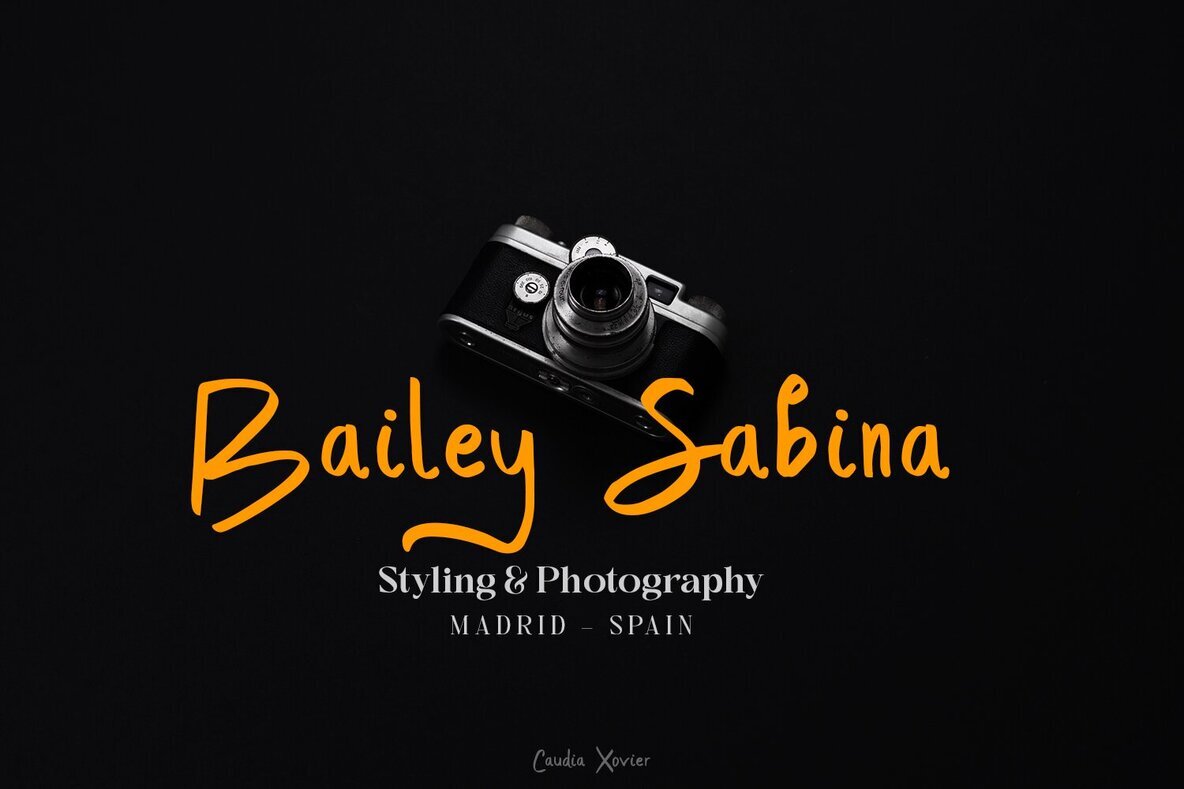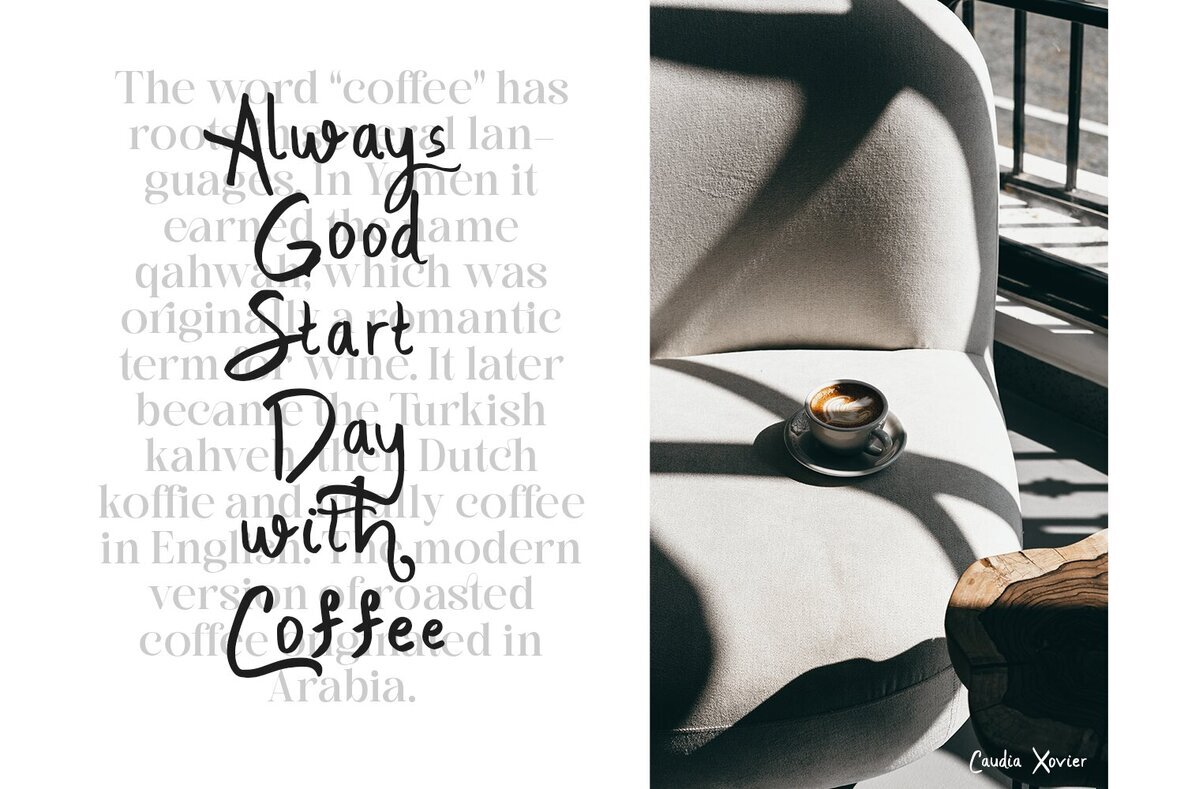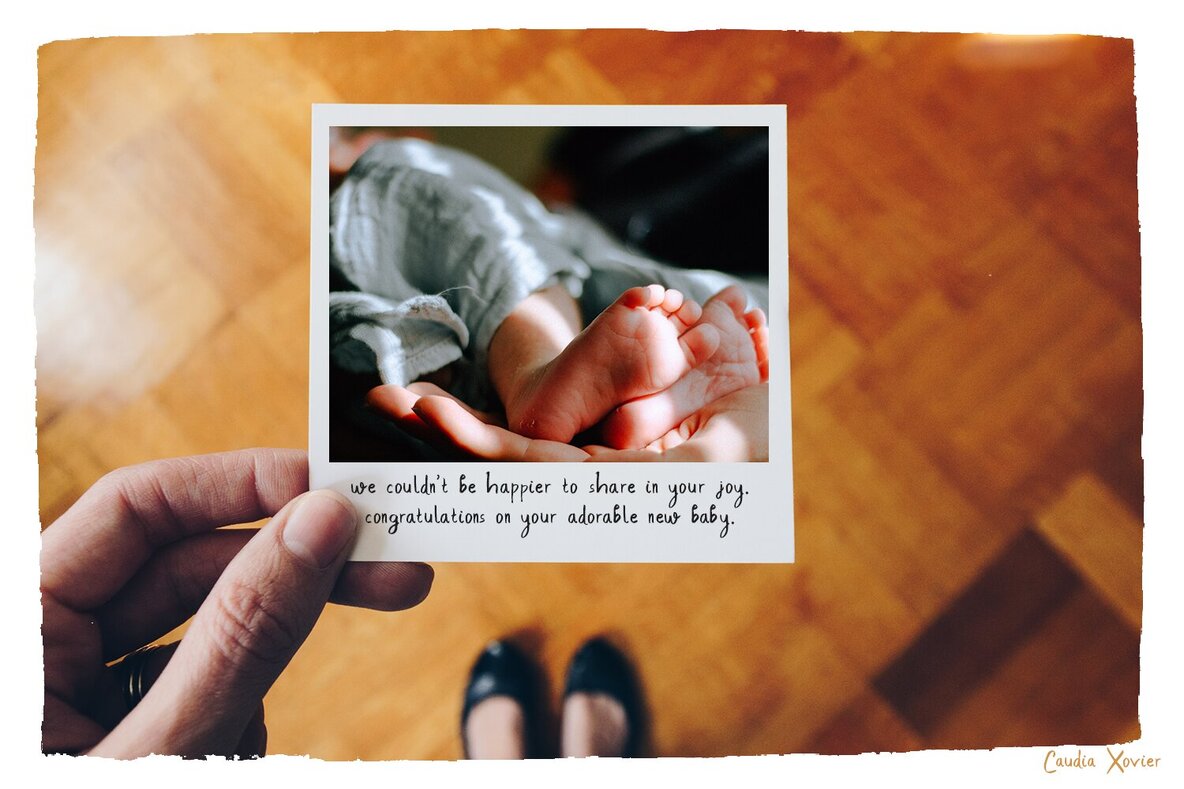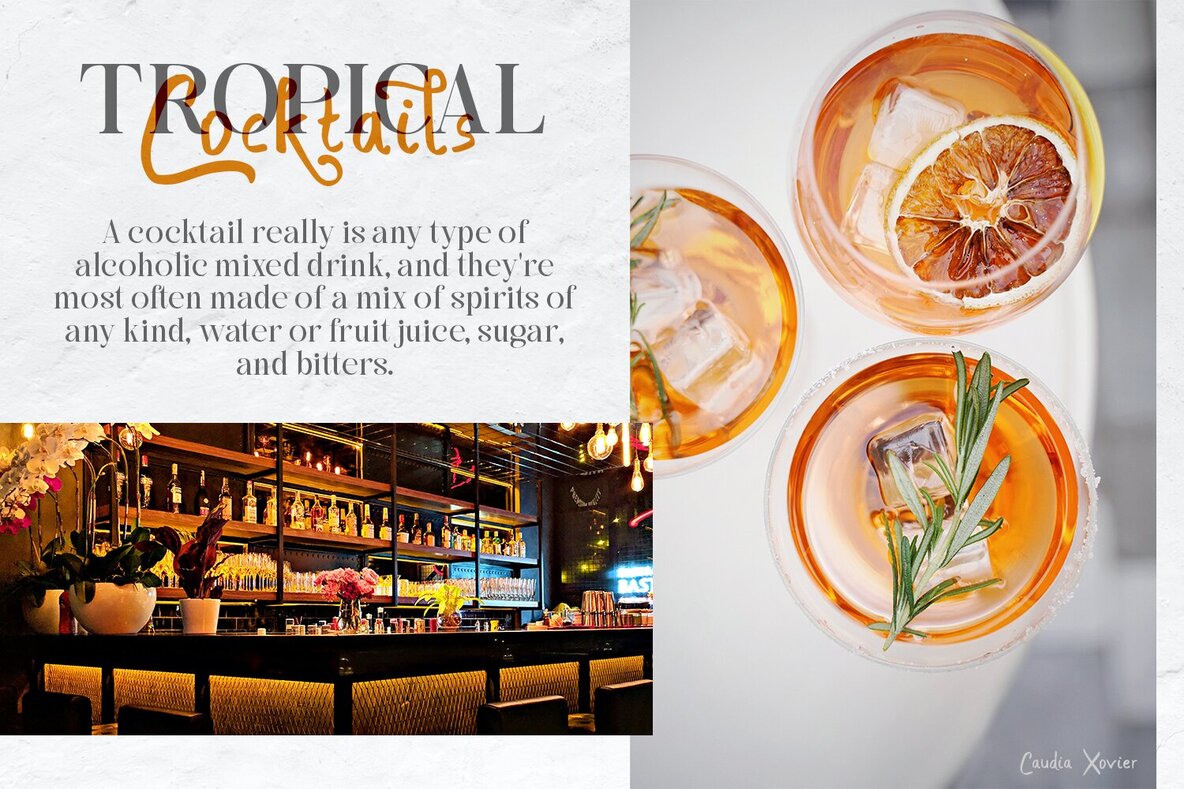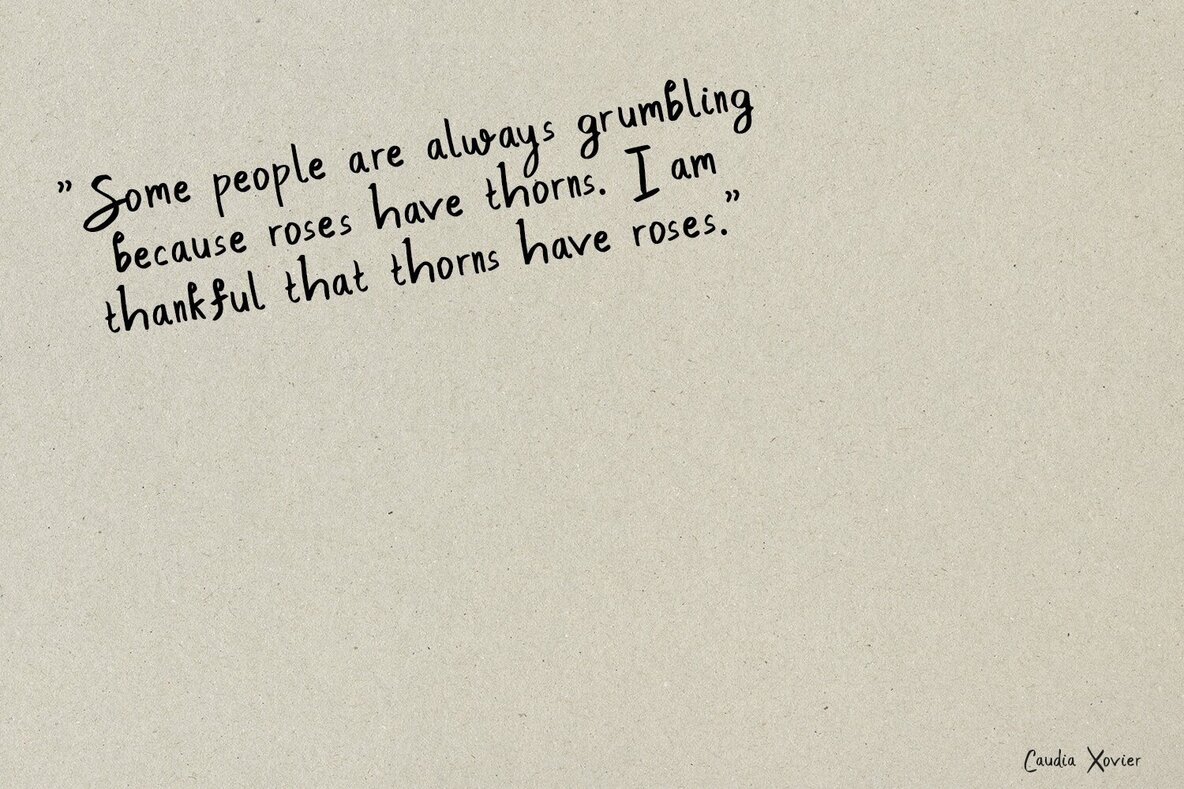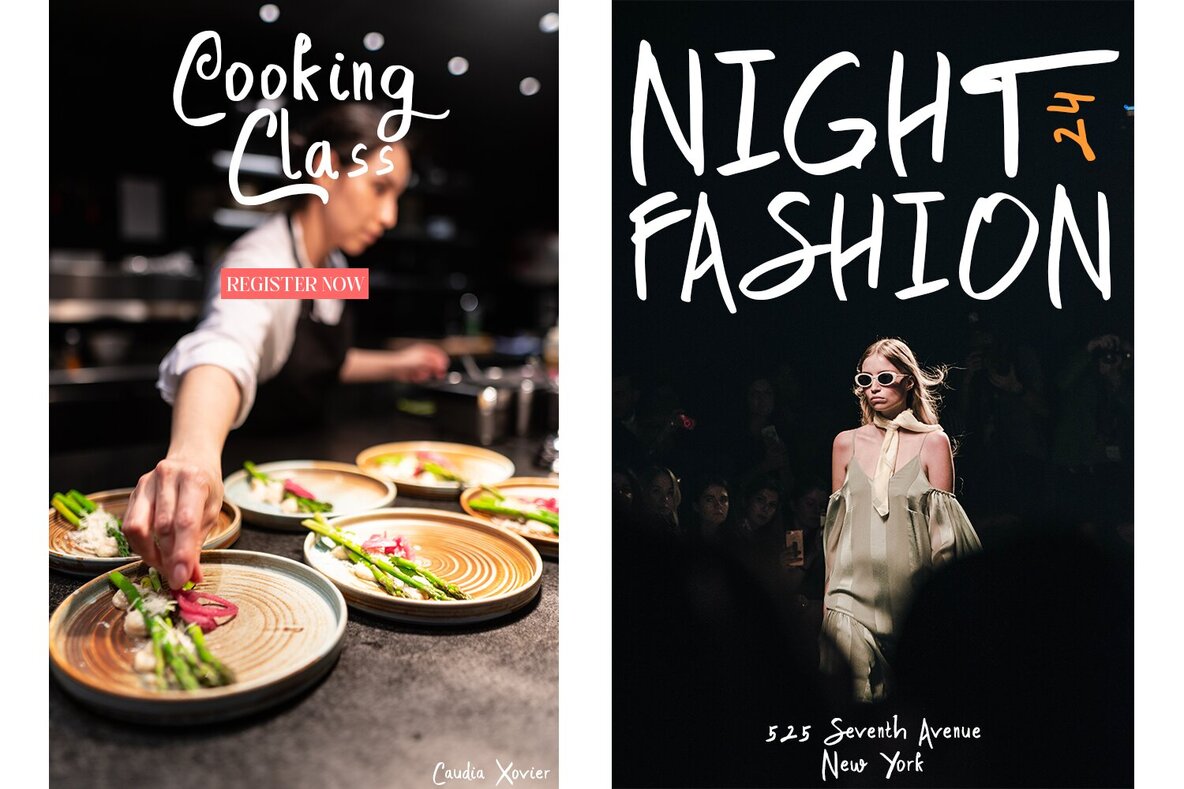
Caudia Xovier Font
Caudia Xovier Regular
Introducing Caudia Xovier is a natural handwritten font come with alternative and ligature and will be perfect for book, title branding, product packaging, invitation, quotes, label, poster, logo etc. Feature: